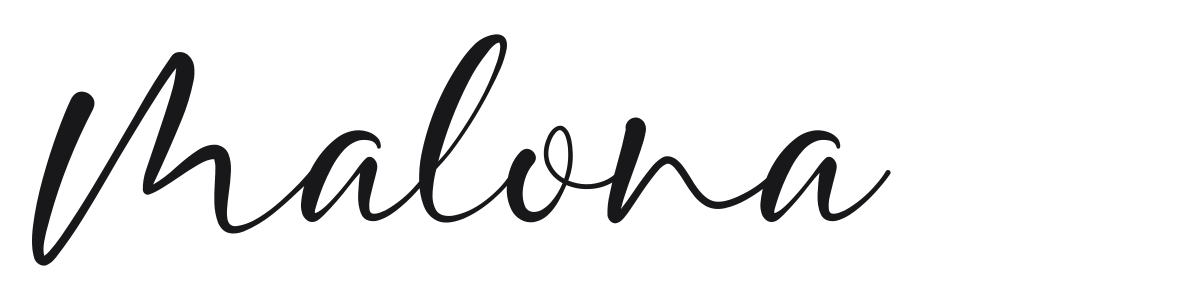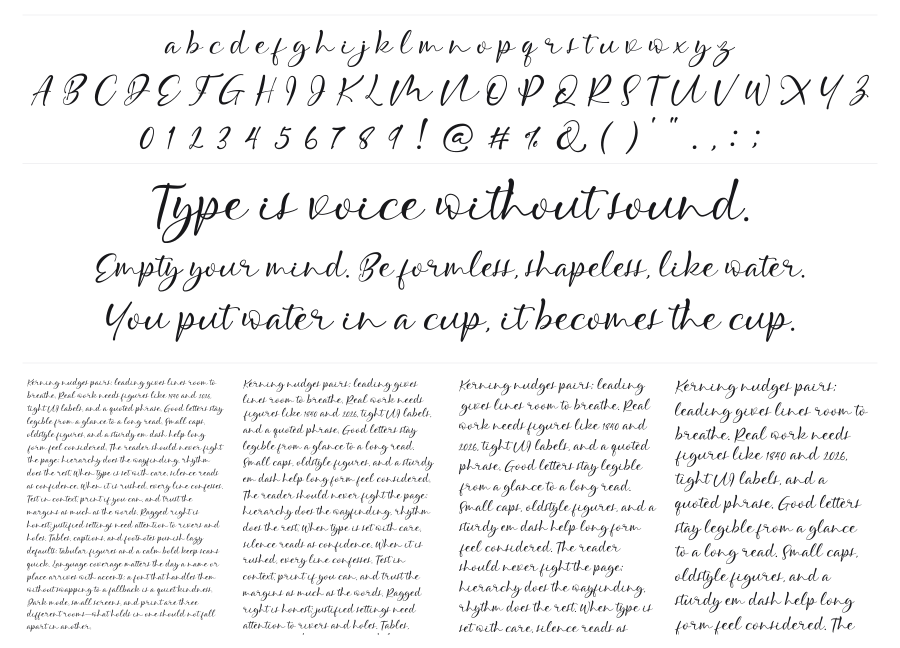
Malona
Malona is a flowing casual script with exuberant looping ascenders and high stroke contrast that gives it a lively, handcrafted energy. The bouncy rhythm and curling swash terminals place it squarely in the contemporary brush-calligraphy tradition. It works well on wedding stationery, branding, and packaging where a warm, personal touch is the goal.